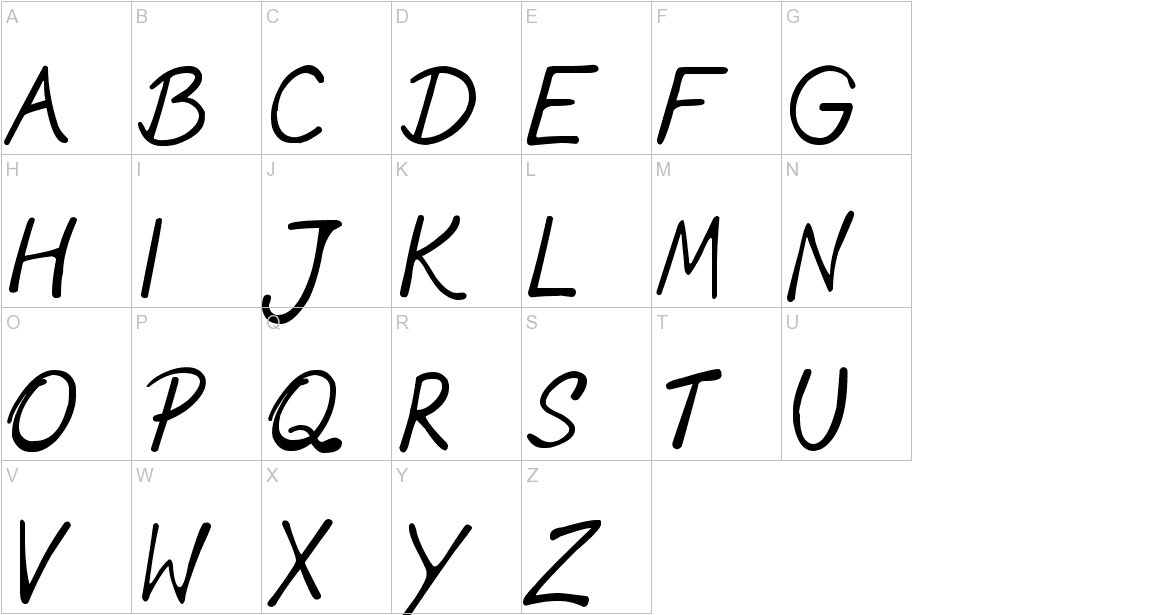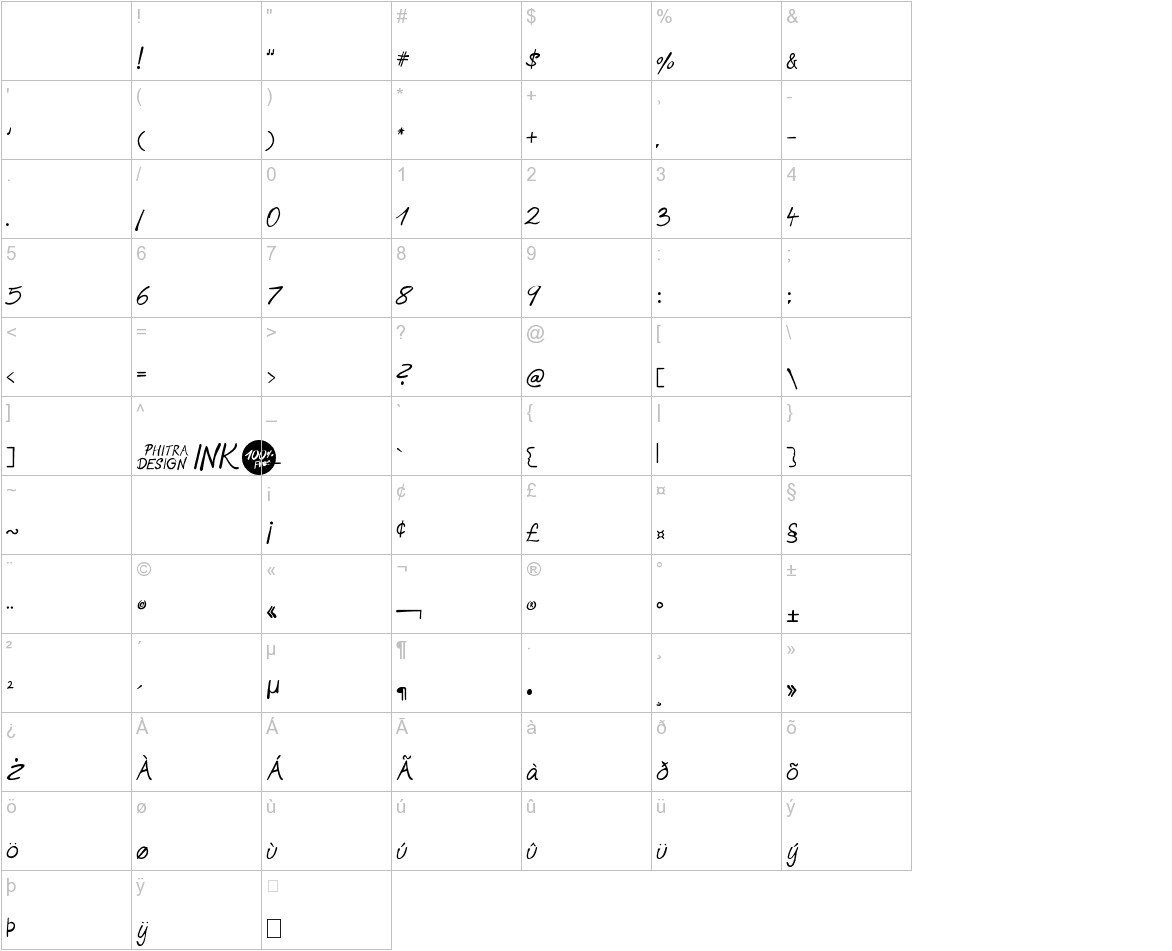
phitradesign INK
This is my second font, which I put a lot of afford in. However I want this font to be free for private as well as for commercial Use. It contains over 200 Characters with almost all special characters. It has a nice and realistic handwritten Style, in a old fashioned way.